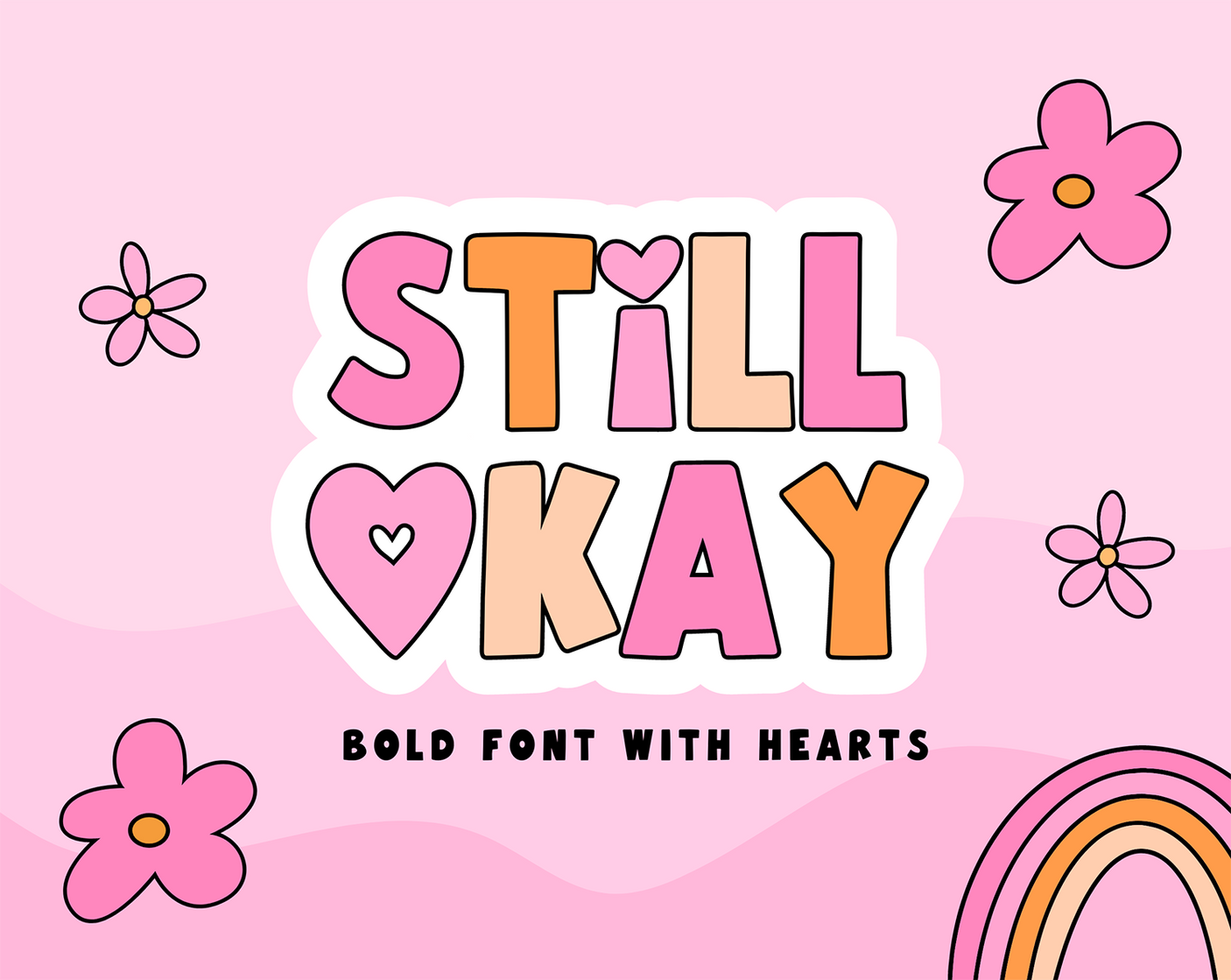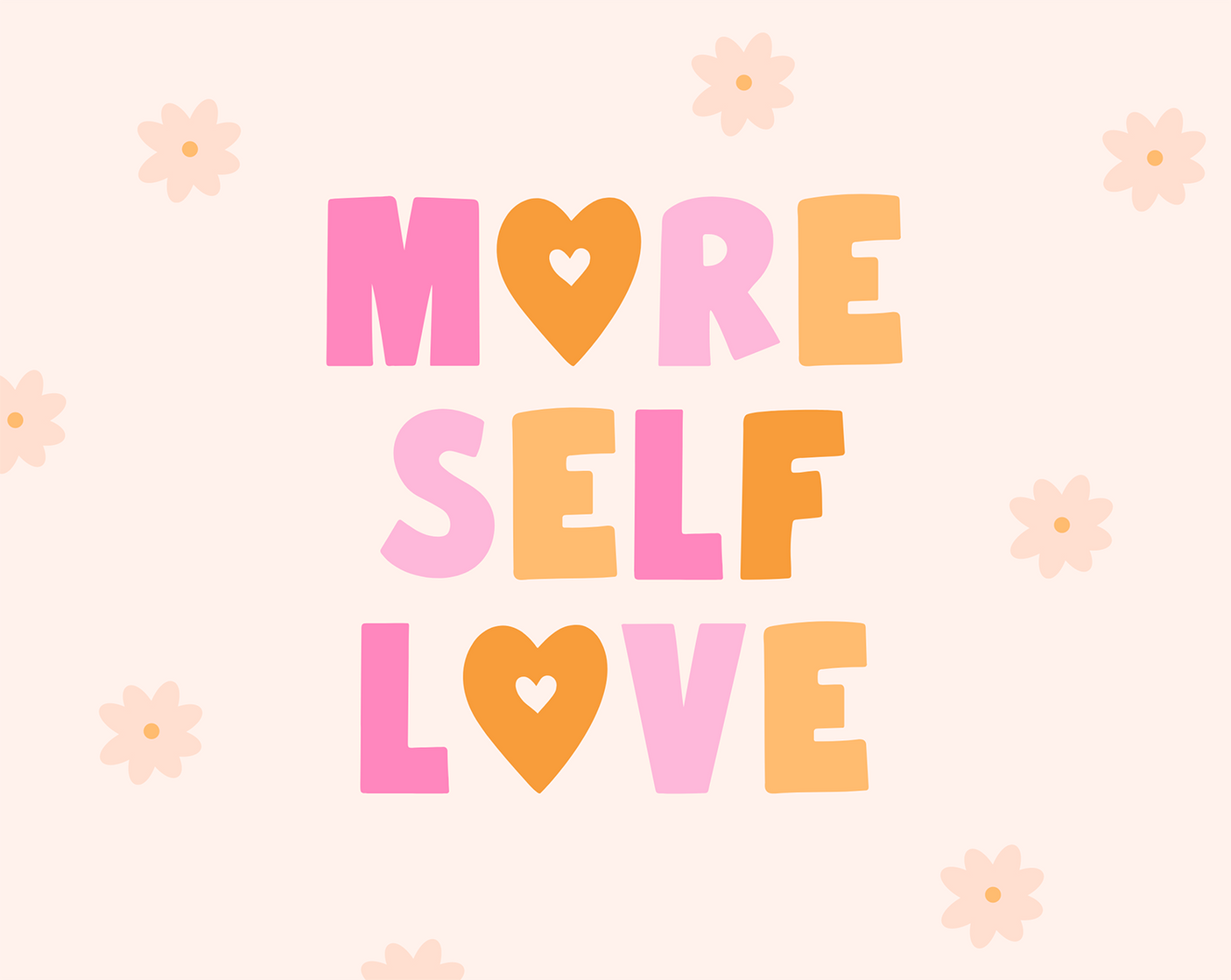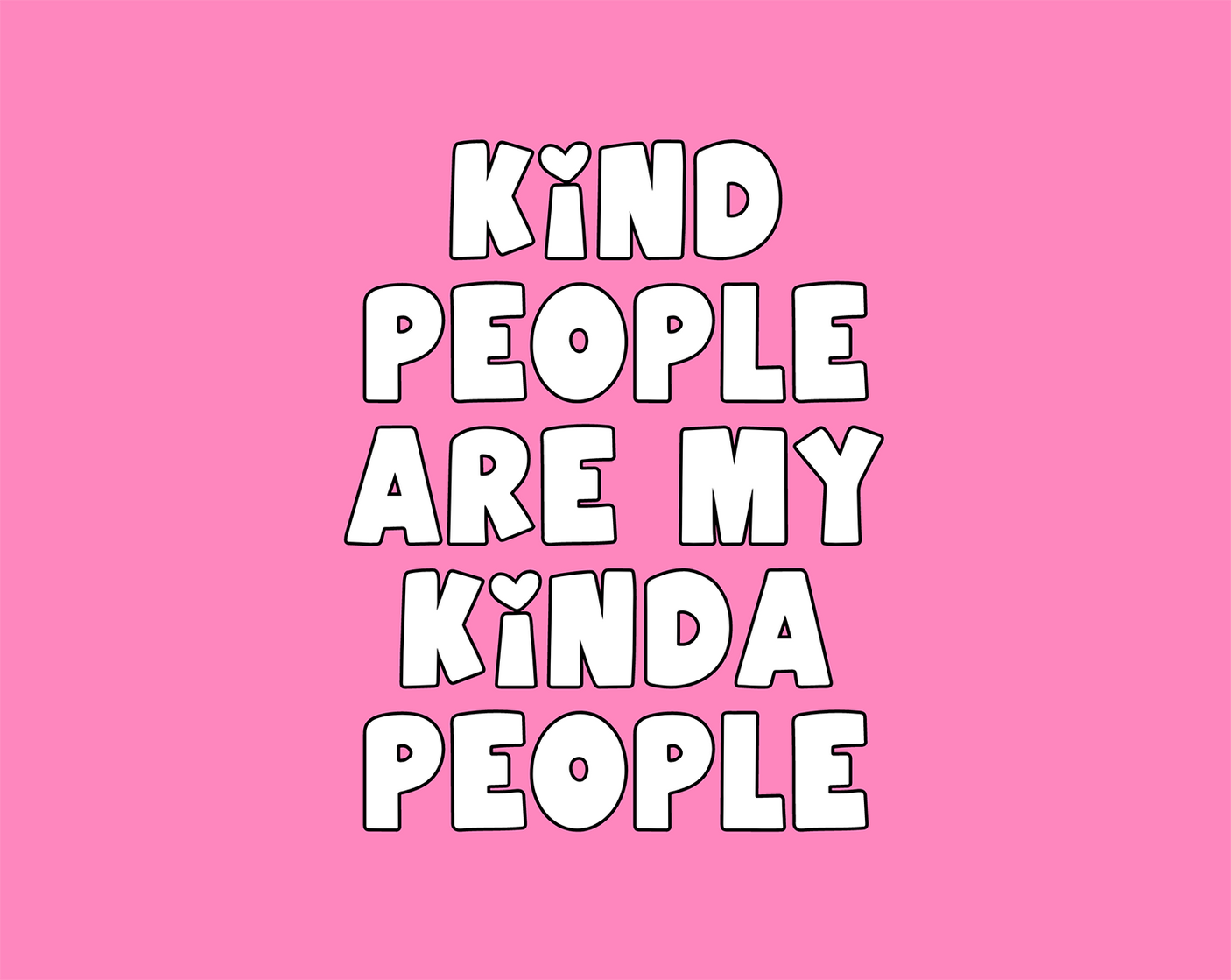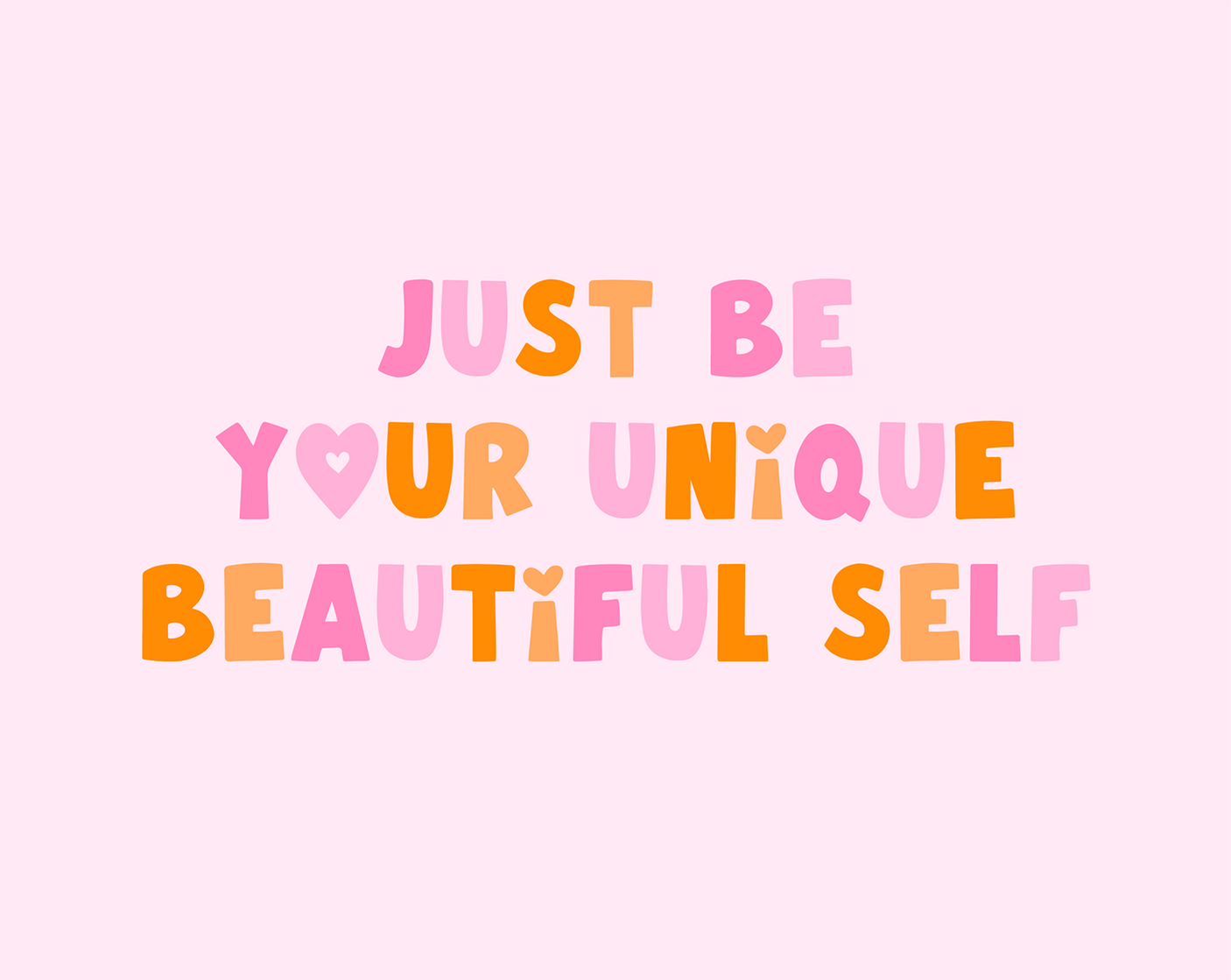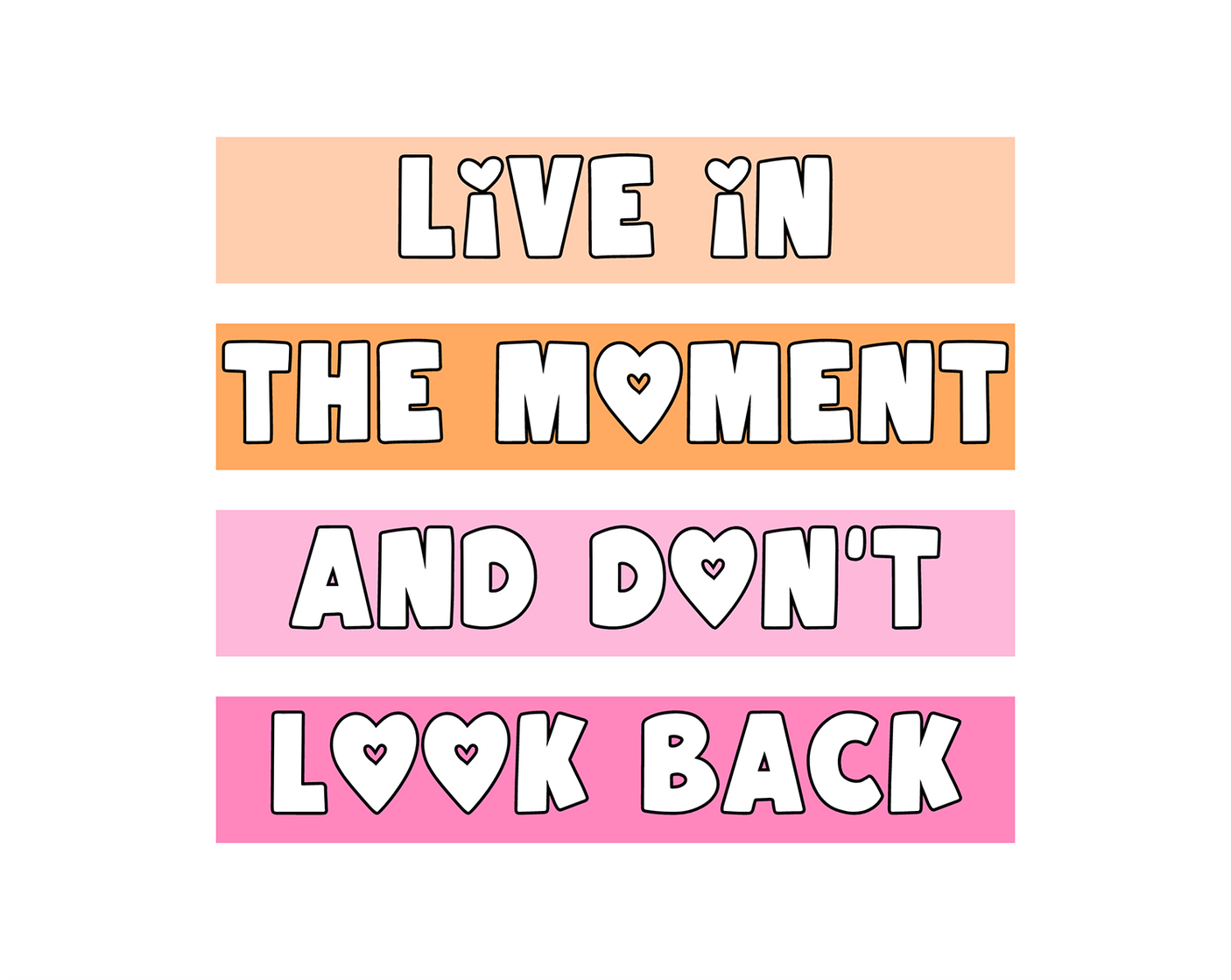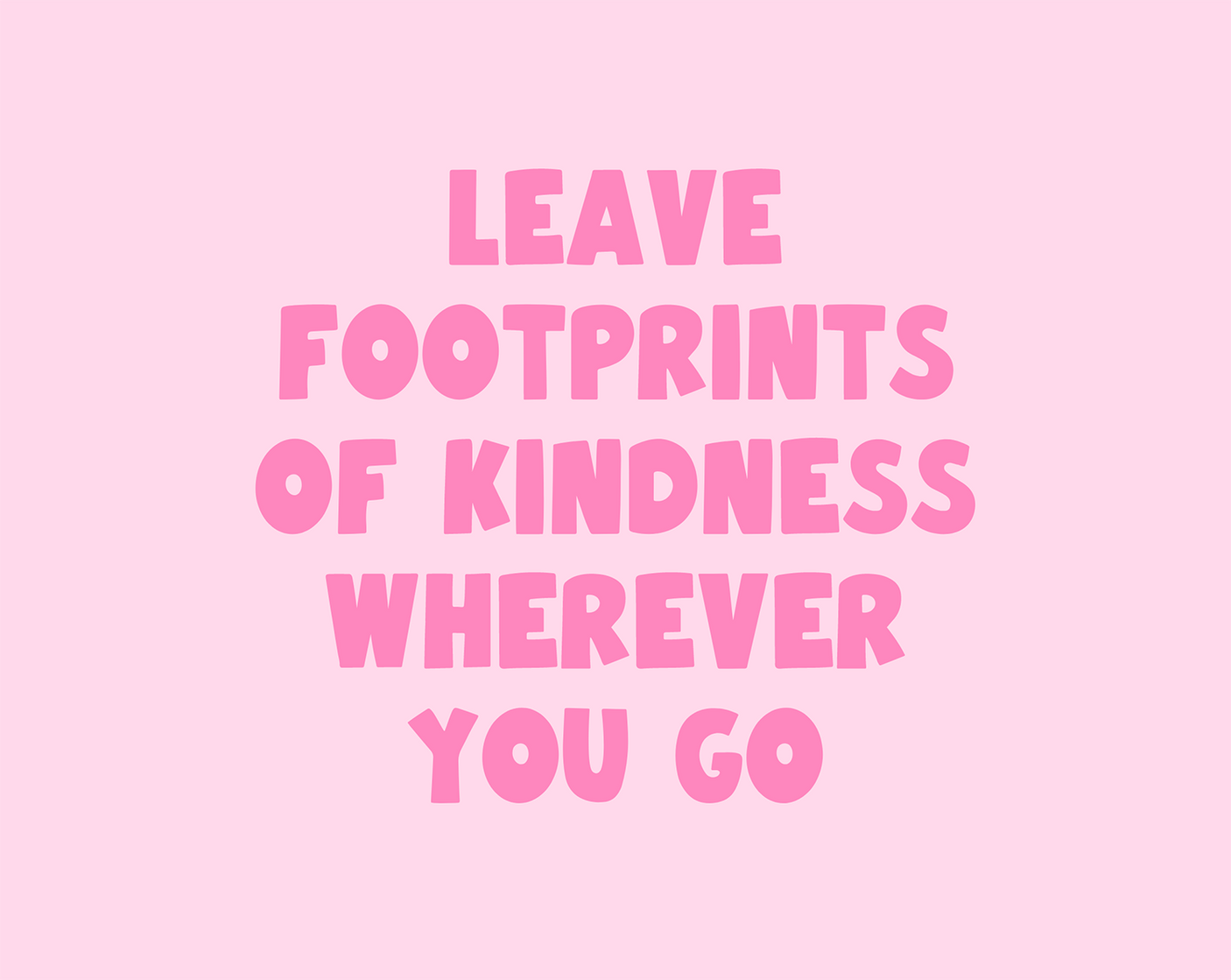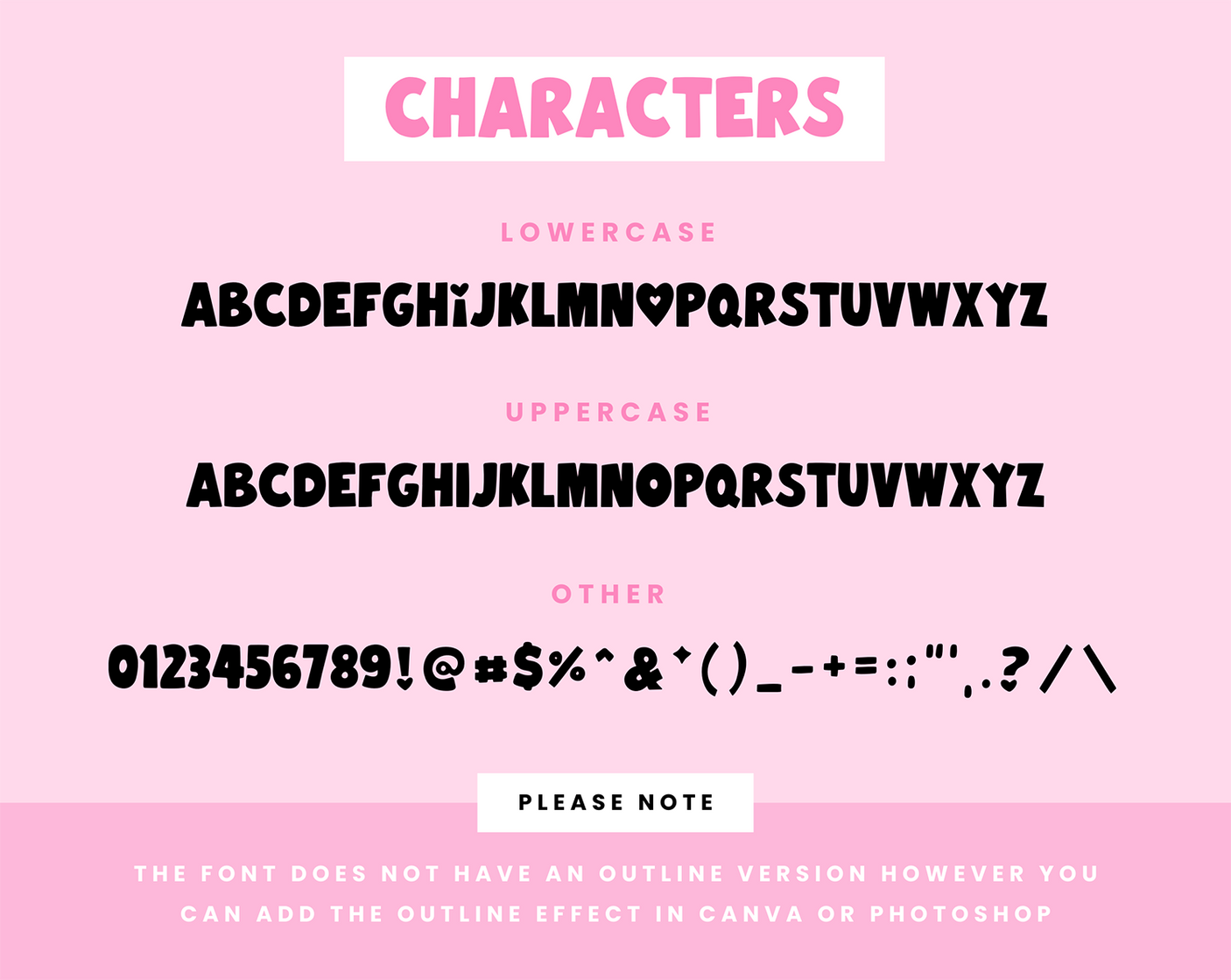
Still Okay Font
Retro font with hearts called Still Okay. This bold font in all uppercase can be used for Cricut, Procreate, Photoshop, iPad and more. It’s a fun heart font perfect for lettering quotes, crafty work, stickers, SVG designs and digital projects.